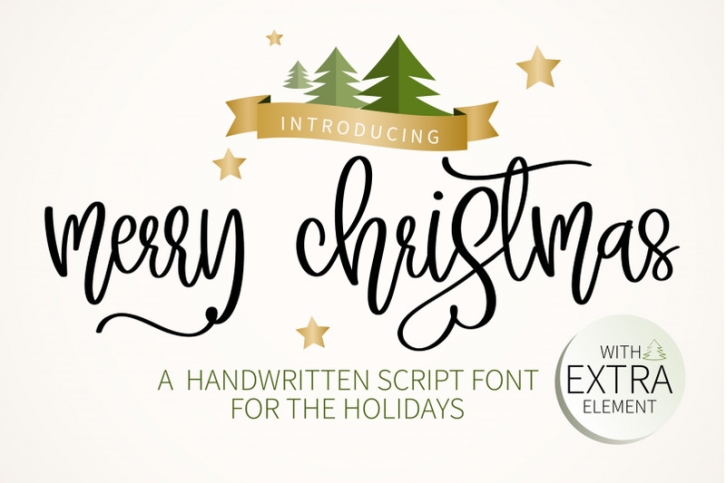
Merry Christmas is stylish script handwritten font with fun informal and perfect for any events.
Merry Christmas is perfect for branding projects, logo, wedding designs, social media posts, advertisements, product packaging, product designs, label, photography, watermark, invitation, stationery, and any projects that need handwriting taste.
• Extra Element
• Standard glyphs, Basic Latin Unicode: standard English number and basic punctuation
• Alternate glyphs